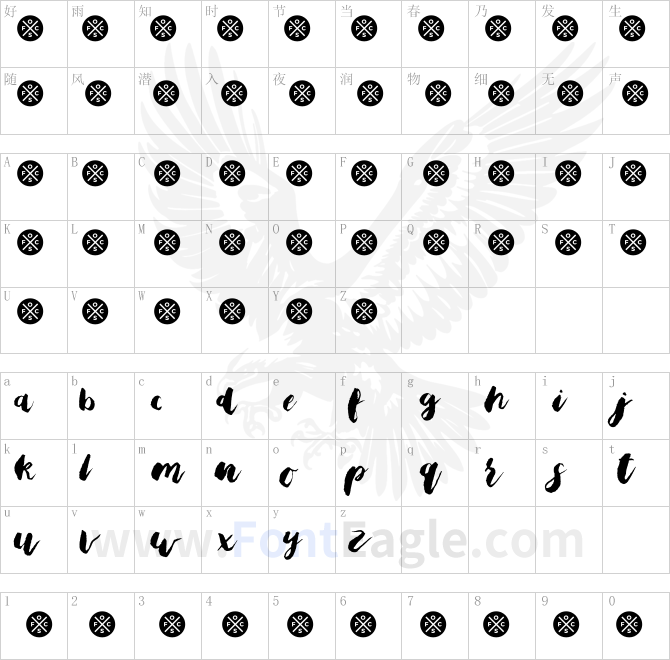
- Font name:Bristle Brush Script Black Demo
- Font Subfamily ID:Bristle Brush Script Black Demo:Version 1.00
- Font Full Name:Bristle Brush Script Black Demo
- Font Version:Version 1.00 September 13, 2016, initial release
- Postscript:BristleBrushScriptBlackDemo
- Font Copyright:Typeface © Out Of Step Font Company. 2016. All Rights Reserved